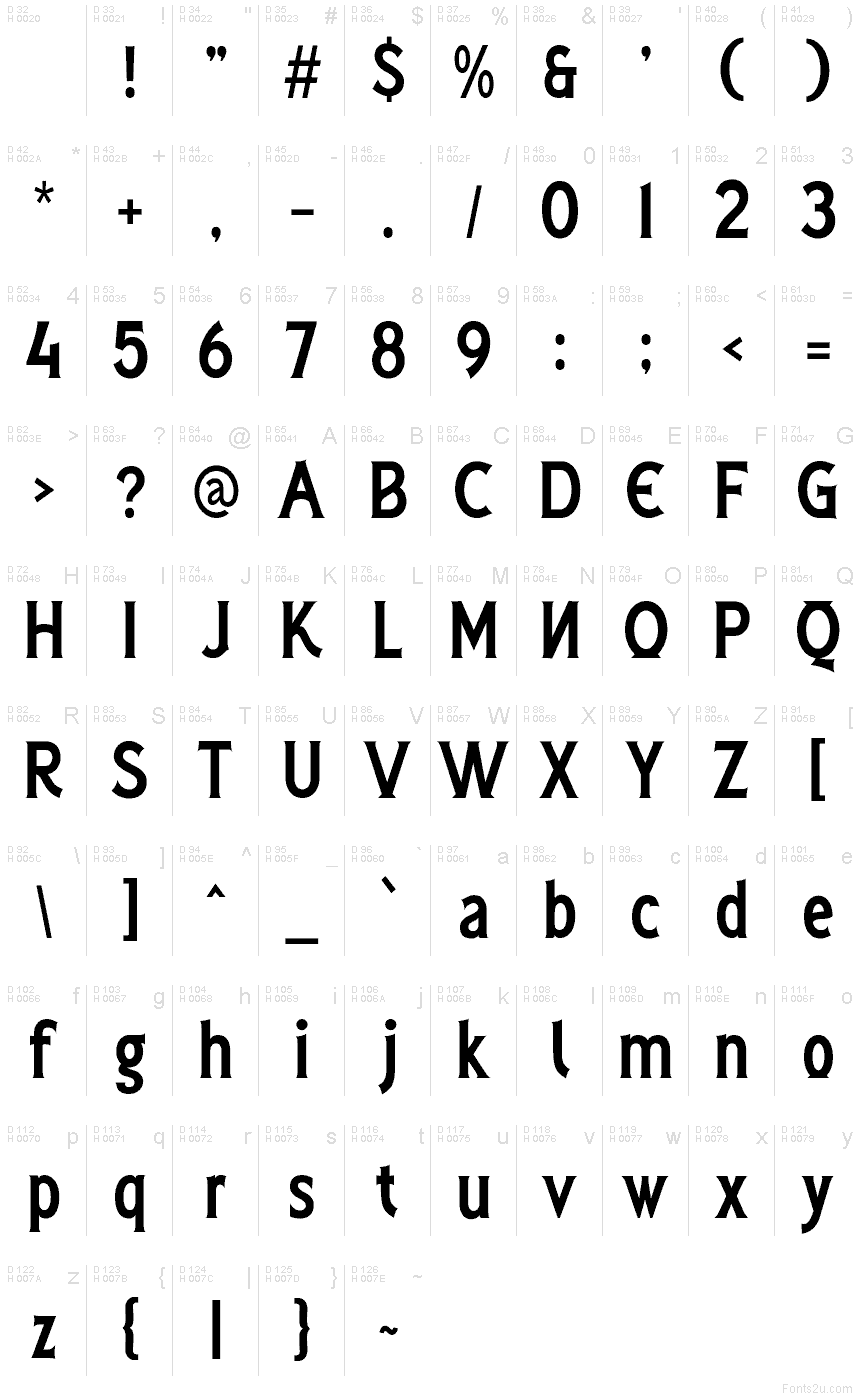
Hittamig Regular
Hittamig font by 177Studio is a free bold retro serif font. It stands out with sculpted, wedge-like serifs, chunky verticals, and scooped curves that feel both inky and controlled. The rhythm snaps between tight spacing and generous bowls, giving headlines a confident, swingy cadence without getting sloppy.
Using Hittamig, you’ll get standout results for posters, retro logos, boutique packaging, music event flyers, editorial pull quotes, and café menus. This free font thrives big and loud, where its crisp contrast and carved terminals can shine. Pair it with a clean grotesk for body copy, or add a touch of letterspacing to dial up the vintage mood.